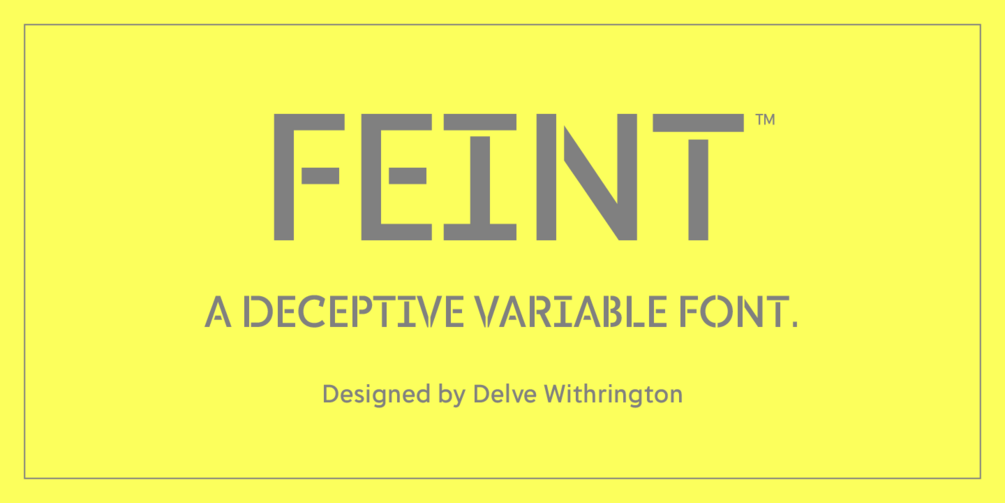
This experimental font explores a little of what is possible using variable font technology. The stencil style design of Feint is primarily utilitarian in nature as this font is a proof-of-concept.
Feint is engineered so every glyph has the same number of vectors and paths as every other glyph. I.e.- they are all 100% compatible with each other. By the numbers, Feint has 26 instances with 26 uppercase letters in each for a total of 676 glyphs. The first instance is the only one in alphabetical order; all 25 other instances are randomized. Confused? Give it a try in the Features section below to see for yourself.
Moving the slider along the “CYFR” axis morphs every uppercase letter into every other letter — instance by instance — visually scrambling the original message while the underlying codepoint remains intact (even if the glyph you see is not what you typed.
What can it be used for? Good question. That’s up to you to decipher.
This typeface currently only has uppercase A-Z and is only available as a variable font.
Updates planned for Feint in 2024:
☐ Add digits, punctuation, and symbols
☐ Add diacritic marks + accented variants
☐ Add kerning as needed
Secret Mission (should I choose to accept it):
☐ Build a textured style
☐ Build a rounded style
☐ Build a monospaced style